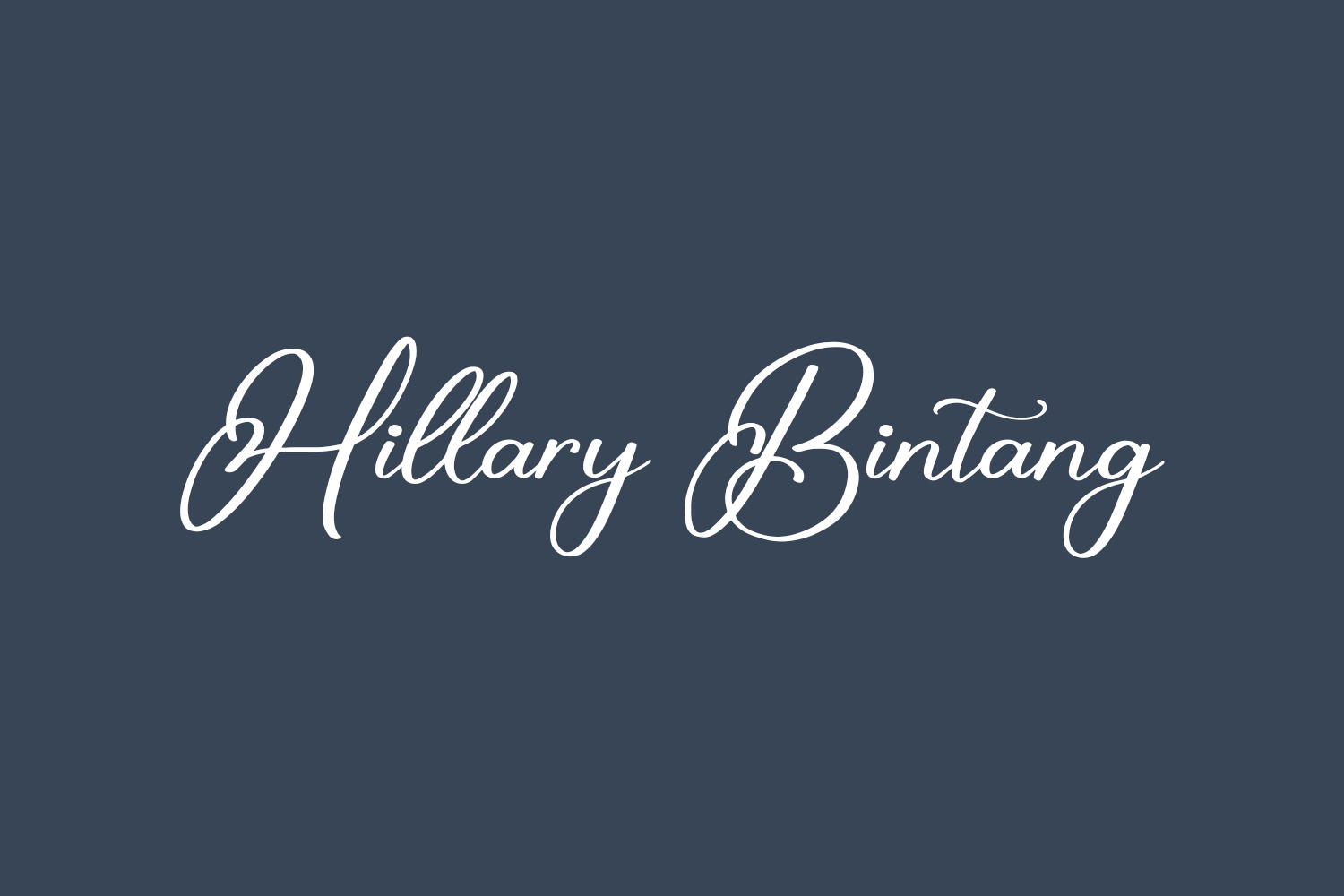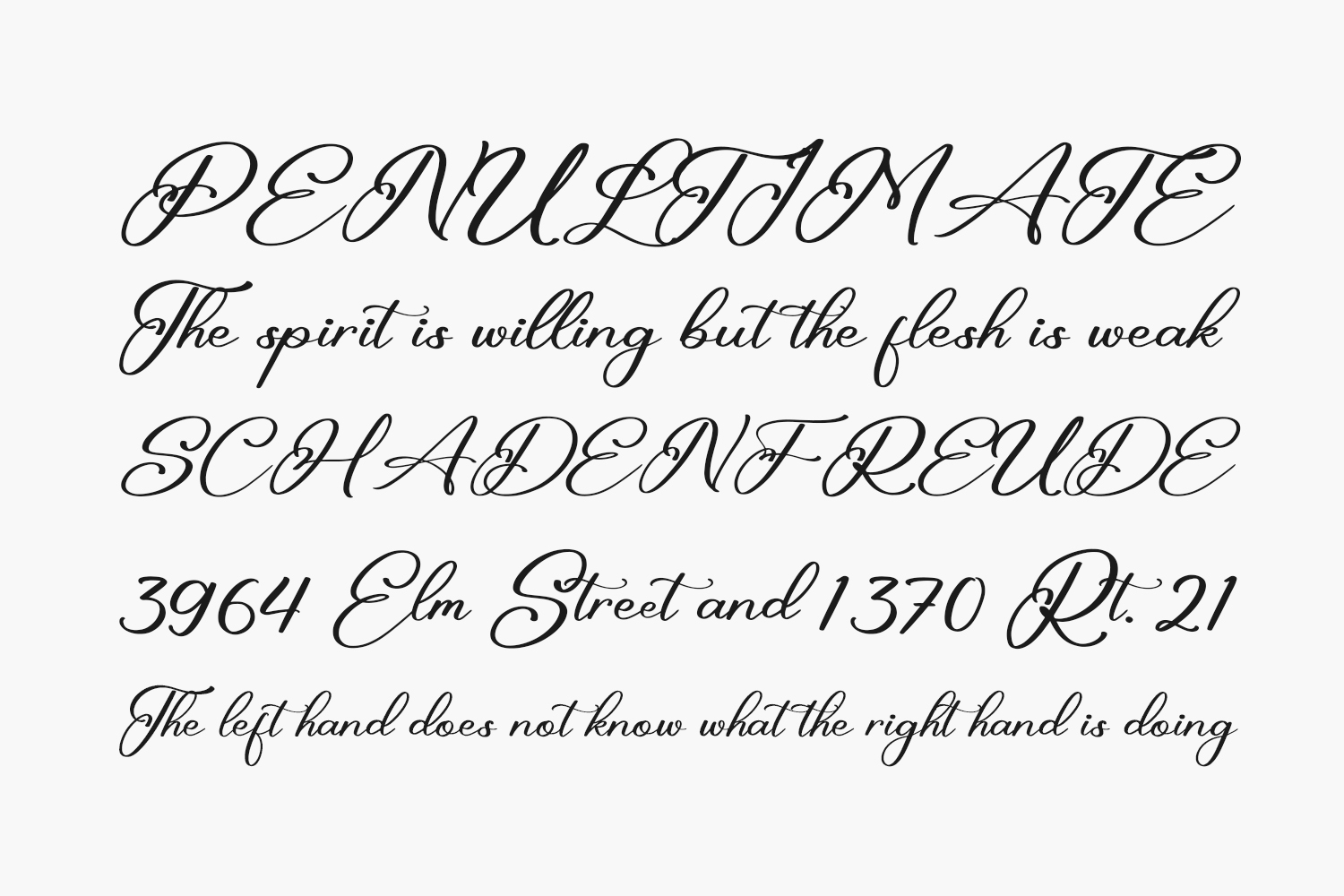
Hillary Bintang Free Font graces as an exquisite and gentle calligraphy font, featuring characters that elegantly sway along the baseline. Infusing a touch of opulence, it becomes the perfect choice to elevate the allure of your envisioned design projects. Hillary Bintang Free Font is free for personal use only. Please purchase the full version for commercial use.
Designed by Letterena Studios